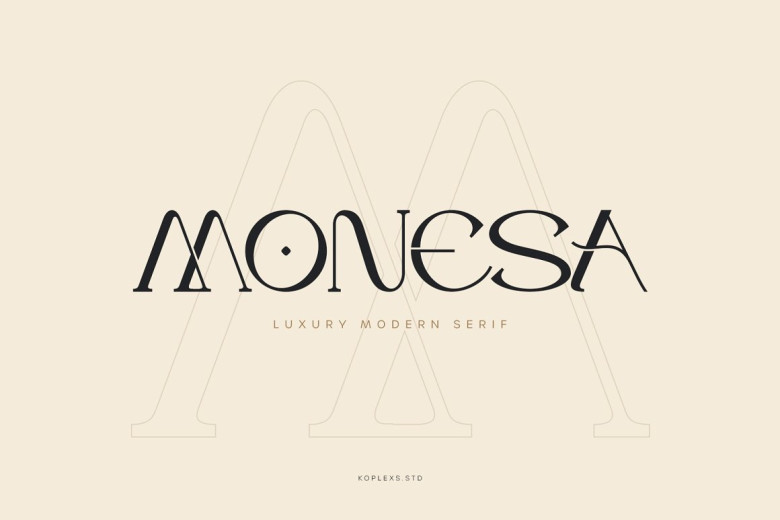
Monesa Font
Monesa – A new serif font specifically designed to meet the requirements of your project is An alternative with more individual and varied shape than others in its class means branded fonts as well. Just think how wonderful this is for art-director and product manager who needs to make his design look both modern and godsorely uncopied.
Our monesa font also includes all sorts of alternate characters so you can make up one for every need in your art direction and design whether it be as a logo or wordmark head noted onto your photos, converting text into words at will.
Monesa – Luxury Modern Serif Font thus has the advantage of being far-reaching, and can adapt to a variety of design types such as Logo, Clothing Brand logo creation, product packing BOX, magazine scan head, wedding invitations card and graphic design, LOGO Brand design, poster design etc.
Monesa Serif Font